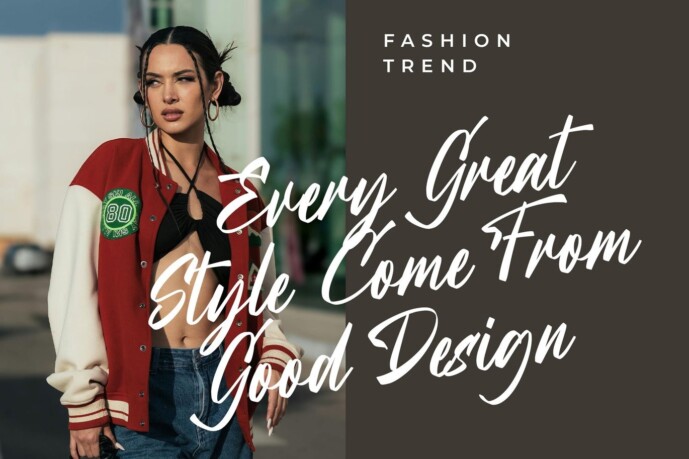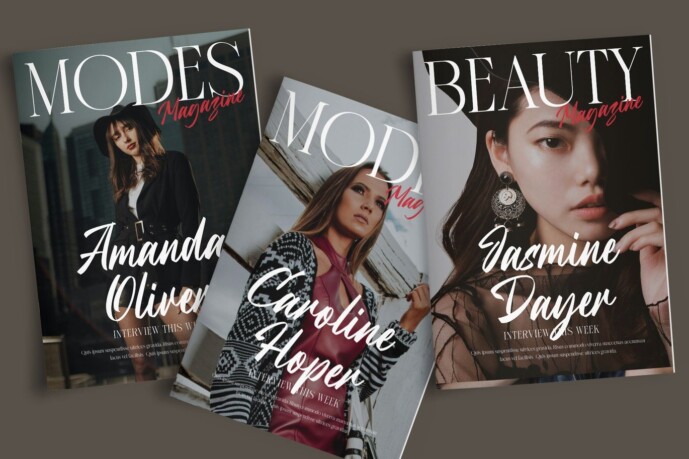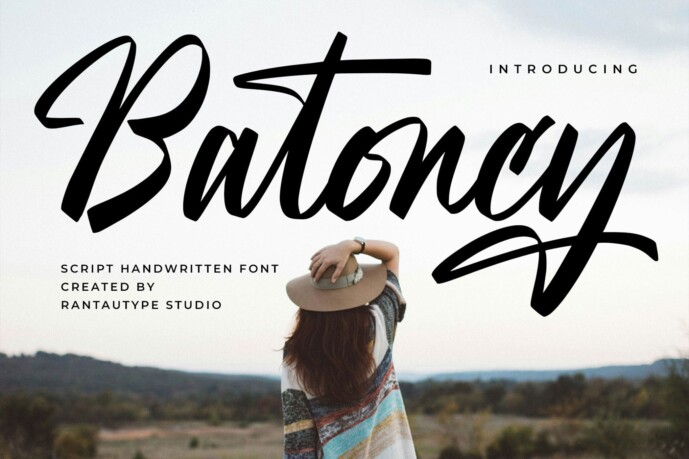
Batoncy Font
Batoncy Font is a new handwritten script font with an authentic style. The trendy and casual Batoncy Bring Curve Shape Blend panel gives it a modern look.
Batoncy is a perfect choice for any creative activity, lifestyle design such as logos, headlines, watermarks on a photograph, cover, branding, display and magazine, wedding event, corporate branding, quotes, album cover, business card, commercial project, corporate branding and other projects with handwritten taste.